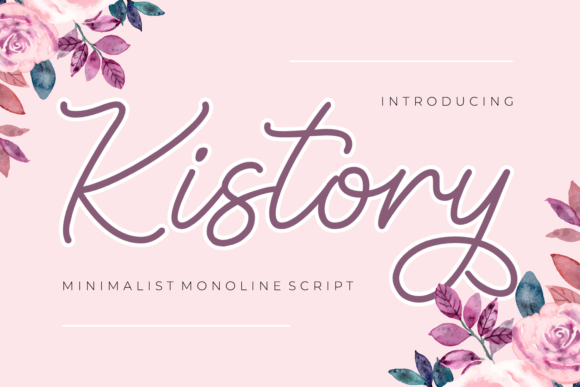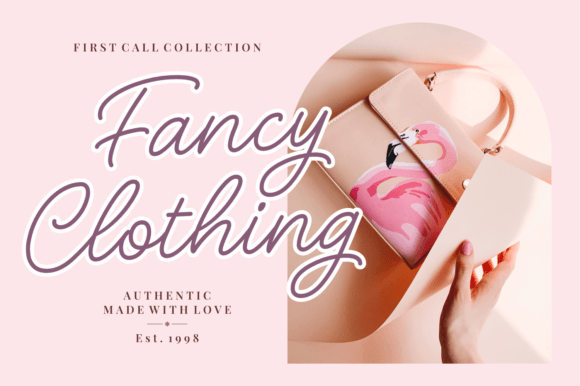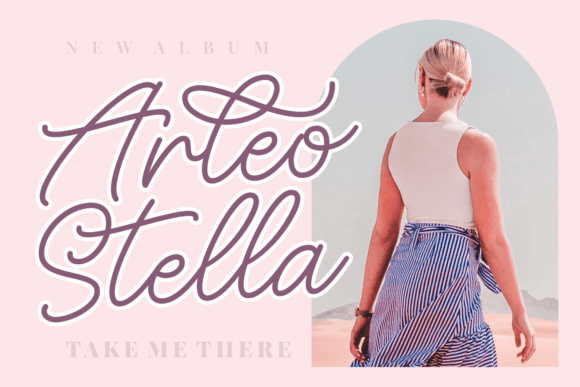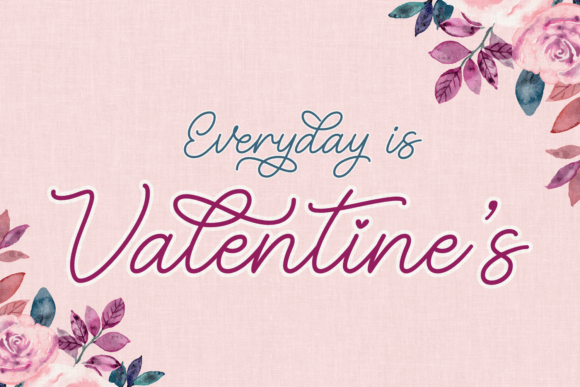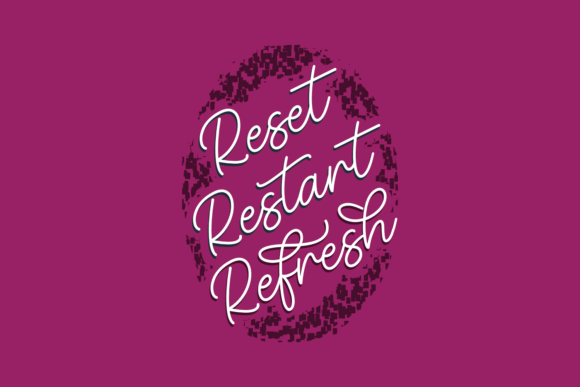
Kistory
About Kistory
Kistory is a crafty and friendly monoline font. Smooth and legible is a perfect font for so many of your projects. From invitations to social media, as well as t-shirts, logos, and print designs. This font will instantly add cuteness and uplift your designs.